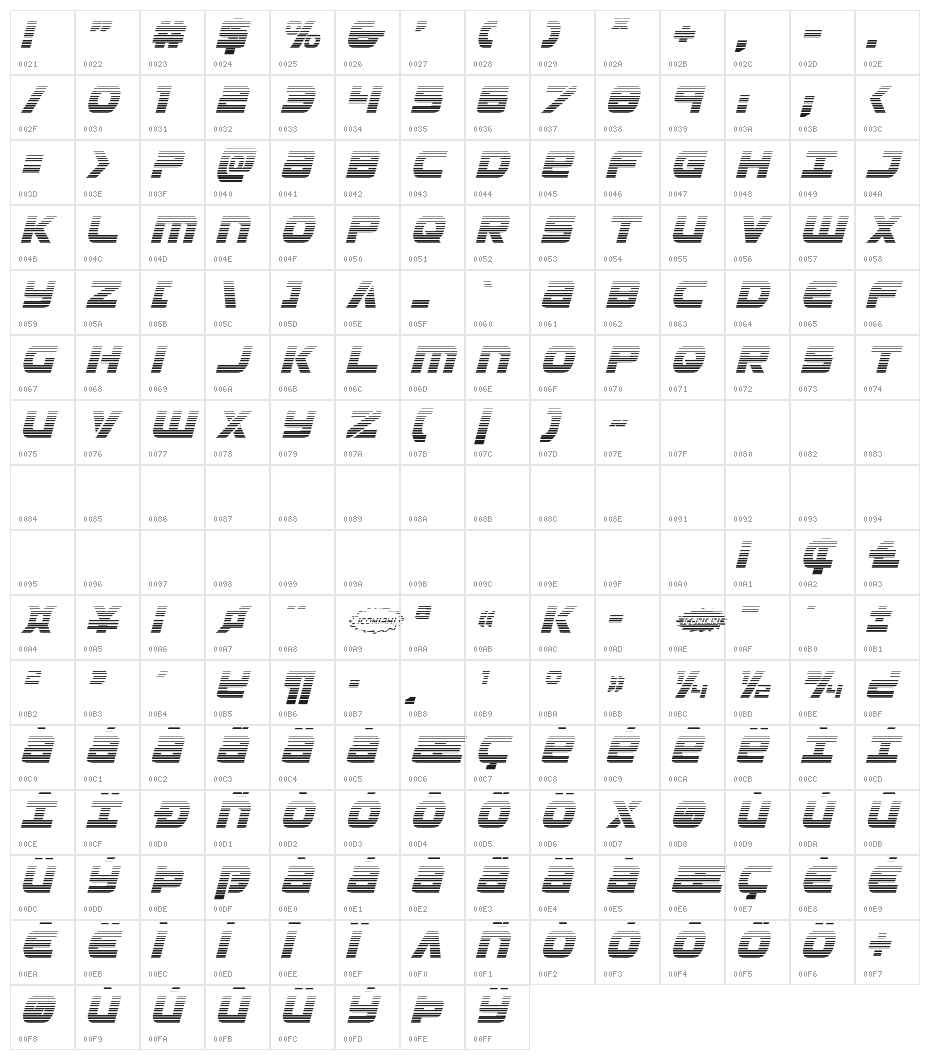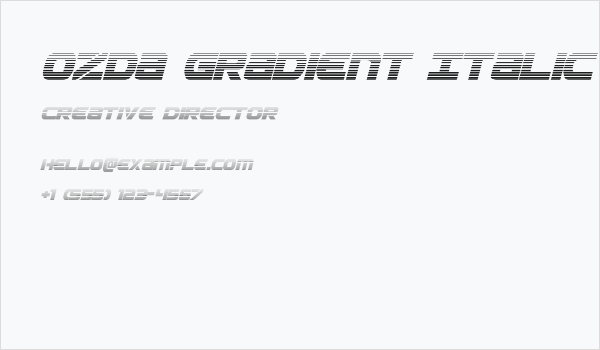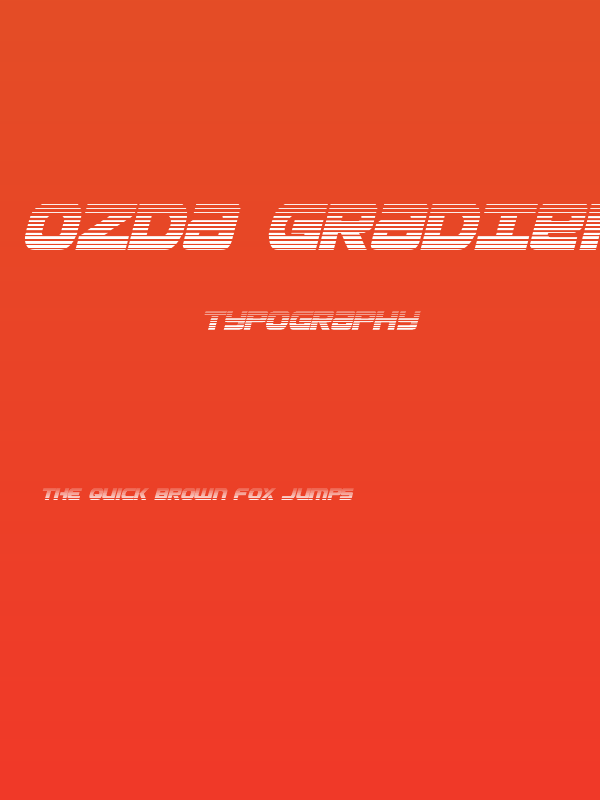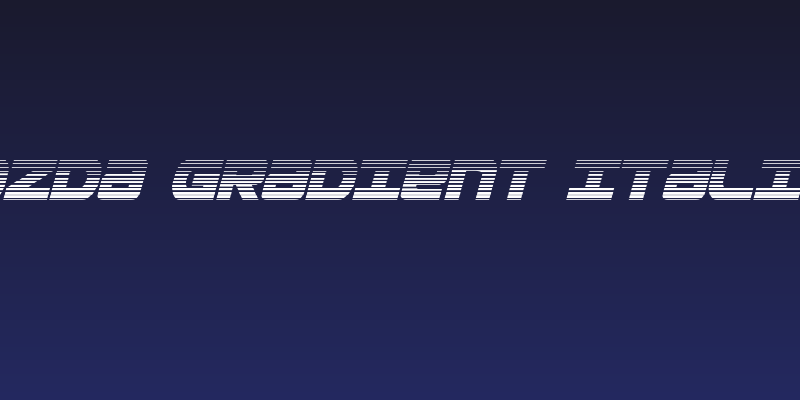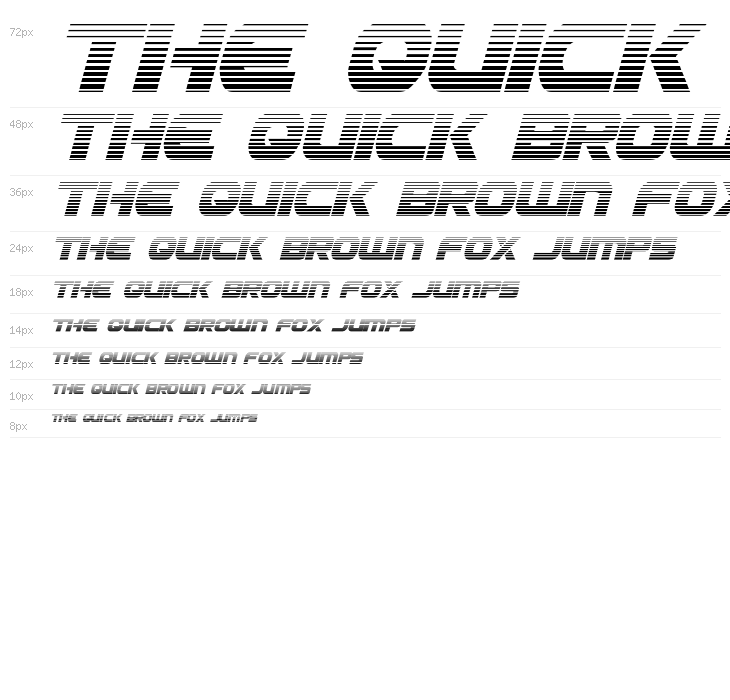
Ozda Gradient Italic Font
Ozda Gradient Italic Description
This font features a dynamic, futuristic design with a gradient effect that gives the impression of movement and speed. The characters are italicized, adding to the sense of forward motion. Each letter is composed of horizontal lines that create a striped pattern, enhancing the modern and sleek aesthetic. The uppercase and lowercase letters maintain a consistent style, with sharp angles and clean lines. The numerals and special characters follow the same design principles, ensuring uniformity across all glyphs. This font is ideal for projects that require a bold and contemporary look, such as technology branding, sports team logos, or sci-fi themed designs.
Proposed ProjectsTechnology branding, sports logos, sci-fi themes, modern advertising.